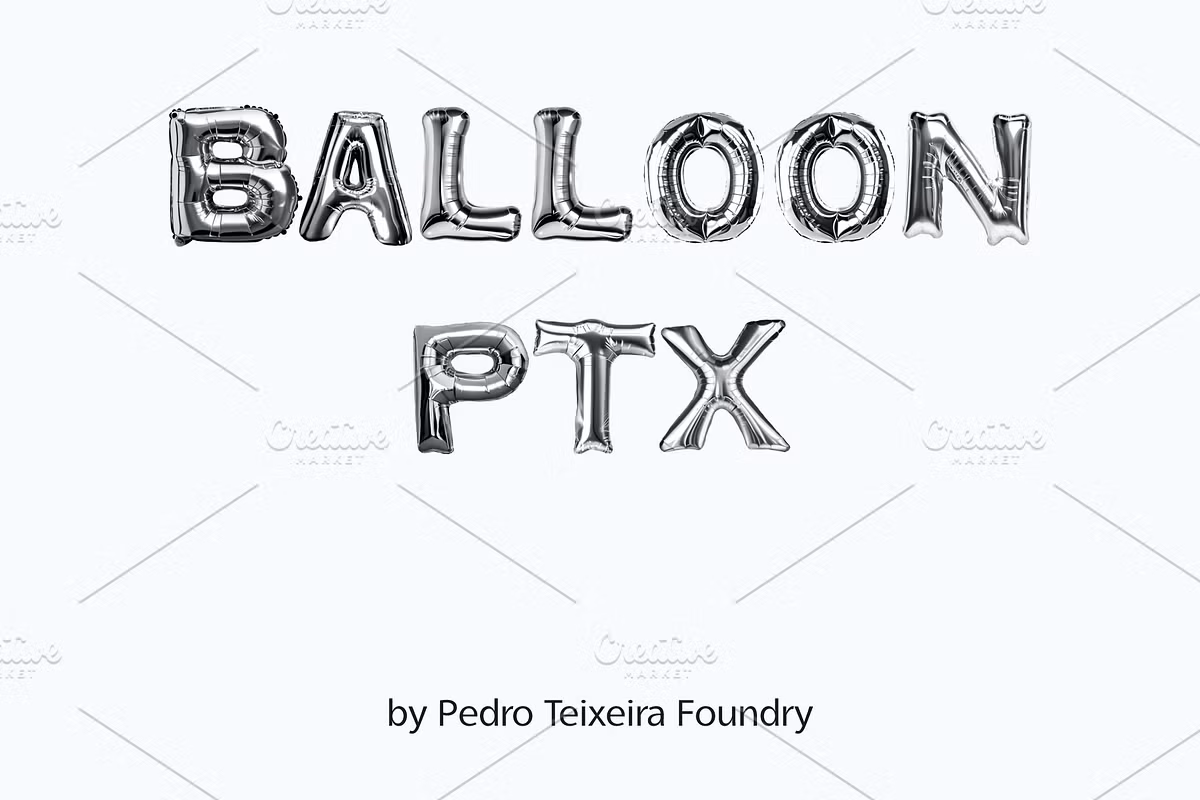
The Inflate PTx (SVG) Balloon Font Free Download is a fun and playful typeface that features a unique balloon-inspired design. Perfect for creating eye-catching logos, event invitations, posters, and social media graphics, this font adds a whimsical and light-hearted touch to your projects. Please note, for commercial use, a license must be purchased. You can download it for free for testing purposes.
With its bold and rounded balloon shapes, the Inflate PTx (SVG) Balloon Font Free Download is ideal for projects that need a vibrant, friendly, and fun vibe. Whether you're designing for children's events, party promotions, or playful branding, this font brings a creative and festive flair to your work.